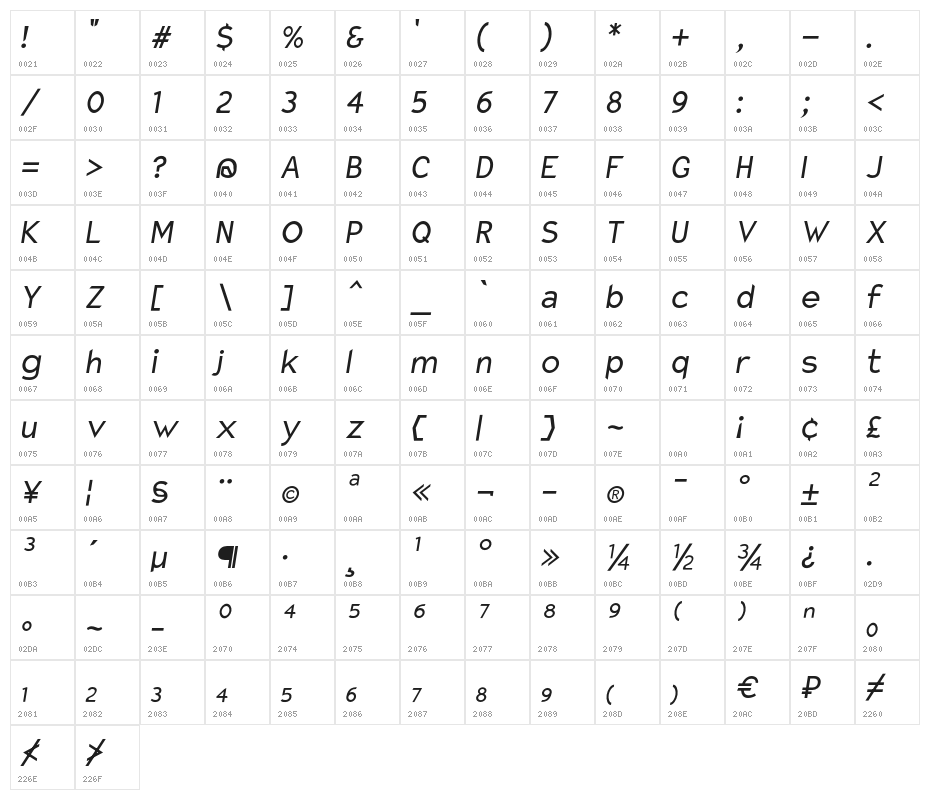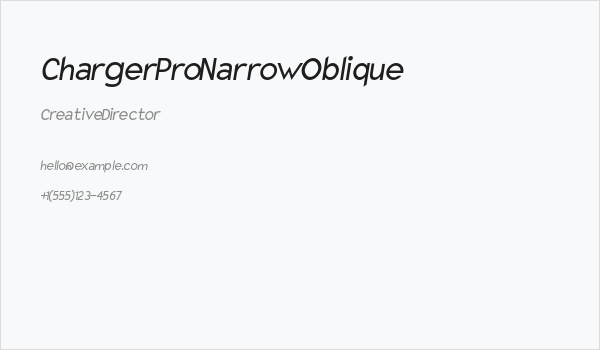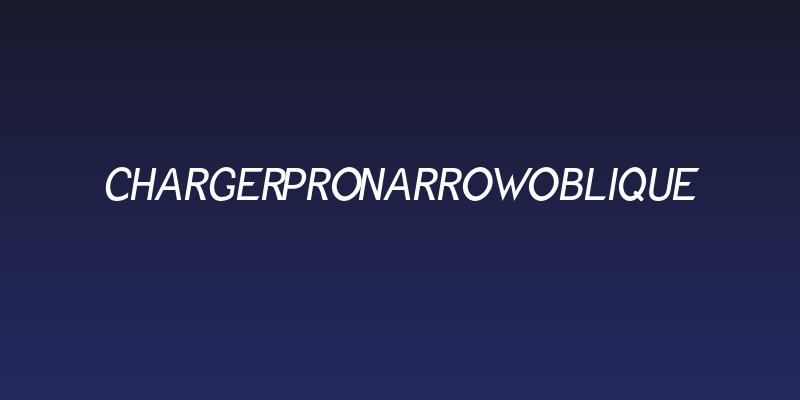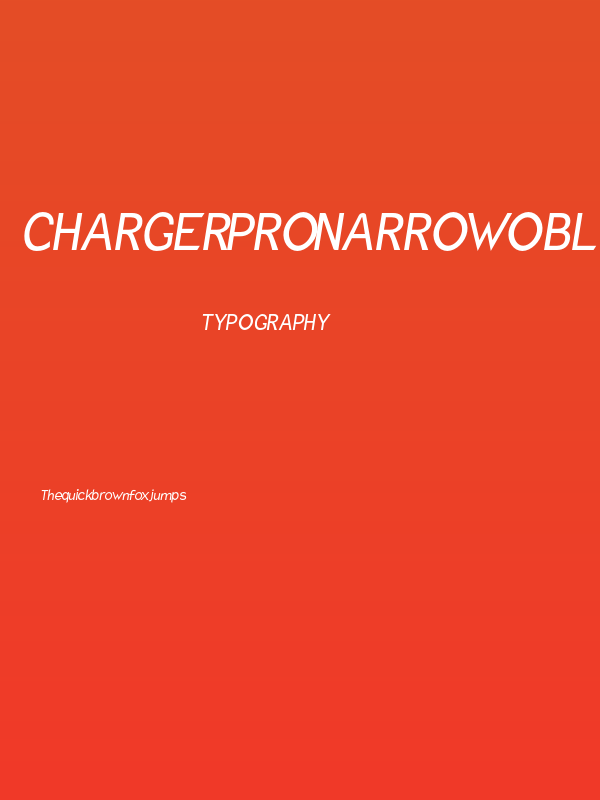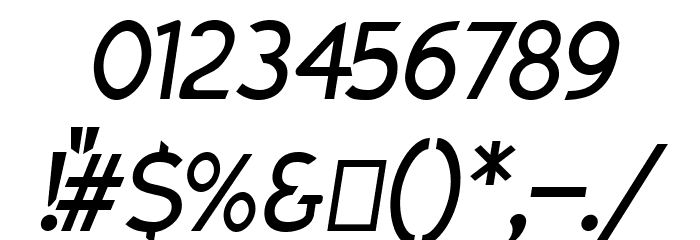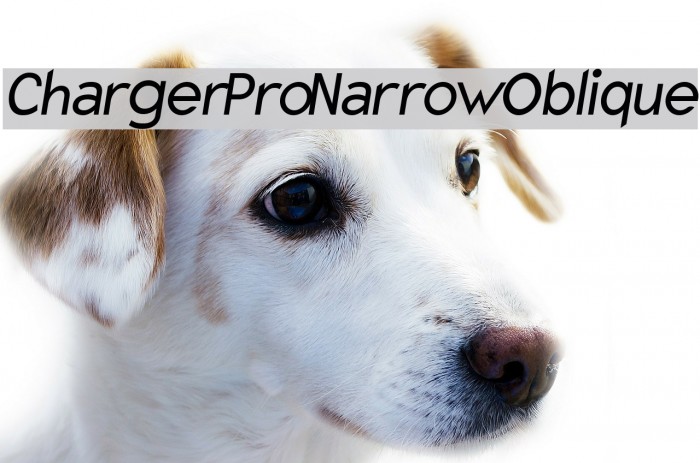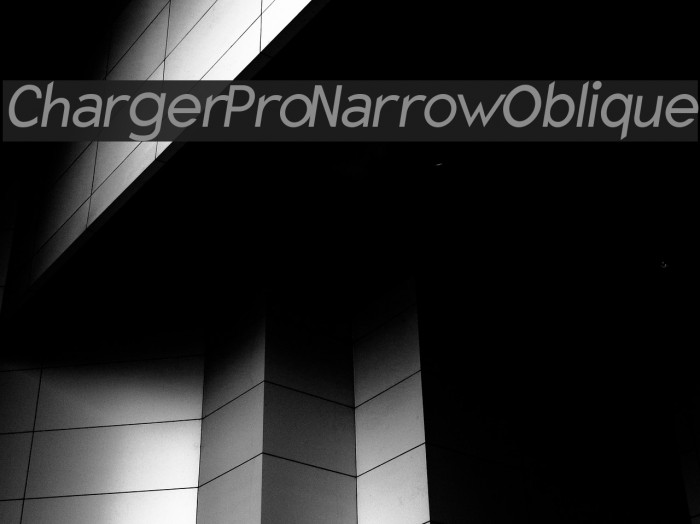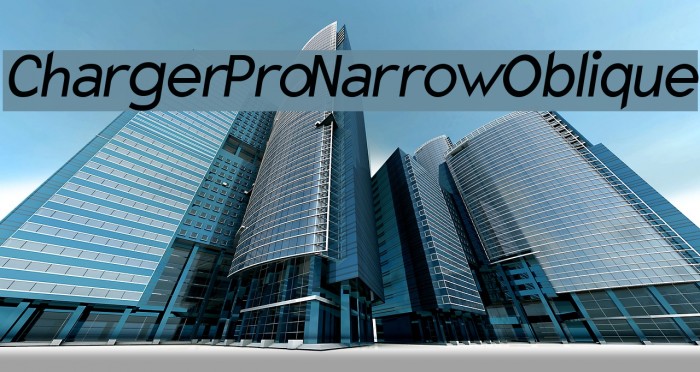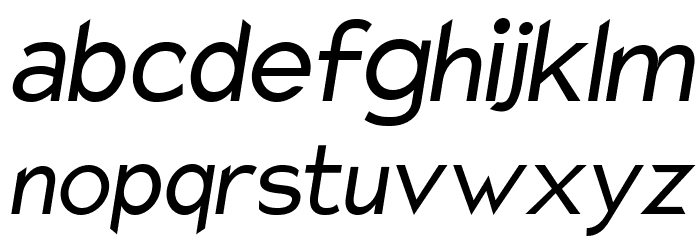
Charger Pro Narrow Oblique Font
Charger Pro Narrow Oblique Description
This font features a sleek, modern design with a narrow and oblique style. The characters are slightly slanted, giving a dynamic and forward-moving appearance. The strokes are clean and consistent, with a uniform thickness that maintains readability while adding a touch of elegance. The uppercase and lowercase letters are well-proportioned, and the numbers are clear and distinct. Special characters are included, enhancing its versatility for various applications. The overall look is contemporary, making it suitable for projects that require a modern and professional aesthetic.
| Use Case | Headlines, Logos, Branding |
| Proposed Projects | Ideal for branding, advertising, and editorial design projects that require a modern and professional look. |